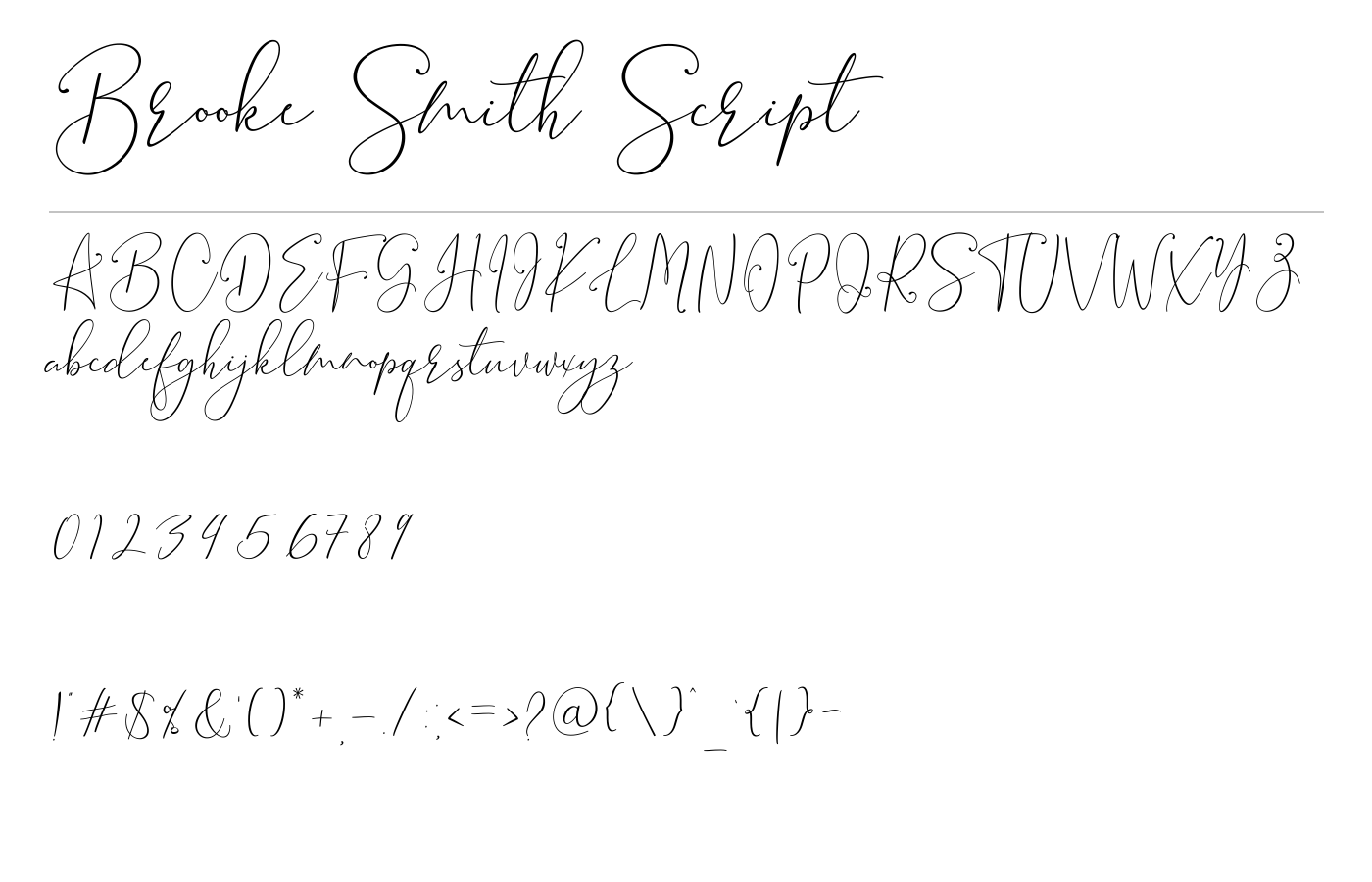
Brooke Smith Script is an elegant and delicate handwritten font with thin, flowing strokes and a graceful, airy feel. Its tall, slender letterforms and fine contrast make it ideal for romantic or sophisticated designs such as wedding invitations, fashion branding, and stylish logos, where a personal and refined touch is desired.
Brooke Smith Script Font
About Brooke Smith Script Font
| Font family | Brooke Smith Script Font |
| Designer | Munawir |